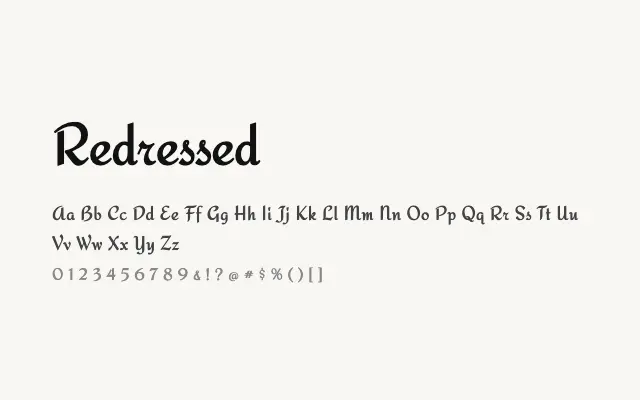
Redressed
A relaxed upright script with casual calligraphic roots, best suited to informal display and headline settings.
Redressed occupies the territory between a formal script and a handwritten display face, with a friendly, unpretentious quality that suits branding for artisan or lifestyle products. Its upright stance makes it more readable than heavily slanted scripts, though the single weight restricts typographic flexibility. It works best at larger sizes where its letterform character can be appreciated.
Redressed is a loosely calligraphic upright script with a relaxed, handcrafted feel, blending script influences with a casual display sensibility. Its single regular weight limits its versatility but suits informal heading use.